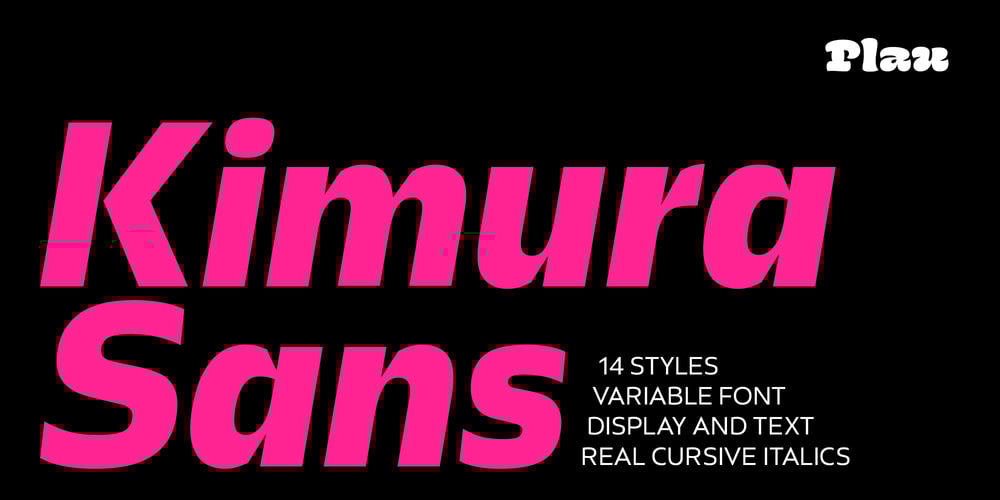
Kimura Sans
Kimura Sans font
Kimura Sans Font Family was designed by Carlos Mignot and published by Plau. Kimura Sans contains 28 styles and family package options. Created by Carlos Mignot, designer and partner at Plau, who was inspired by Marcelo Kimura’s work to create a versatile humanist typeface capable of easily adapting to different design situations.With Kimura Sans, you will be able to create impactful headlines, translate briefings into efficient and stylish visual identities.